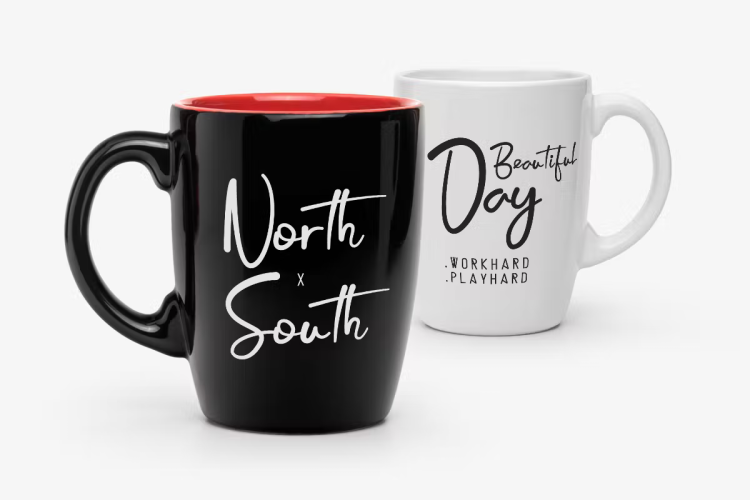
Jacks Font
Introducing Jacks Font Duo – Modern script and sans serif fonts, perfect for many different project ex: quotes, blog header, poster, wedding, branding, logo, fashion, apparel, letter, invitation, stationery, etc.
Where Jacks Font works best
A short phrase in Jacks Font carries warmth that a typeset sans cannot fake; keep the rest of the card plain.
Chalkboard-style headings in Jacks Font make a menu feel hand-made. Keep the dish descriptions in a simple face so prices stay readable.
One line of Jacks Font over a photo is enough; the script carries the tone and the caption does the work.
What kind of work does Jacks Font suit?
It sits in the Script And Handwritten group and reads as branding, modern, sans serif, script. That makes it a candidate wherever those qualities help: headings, packaging, social graphics and brand work. Set it at the size you plan to use before deciding.